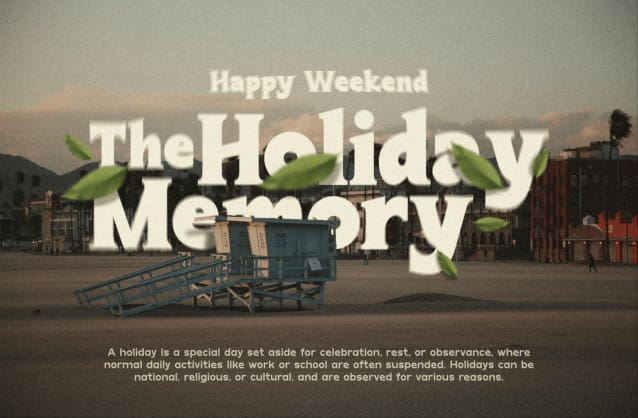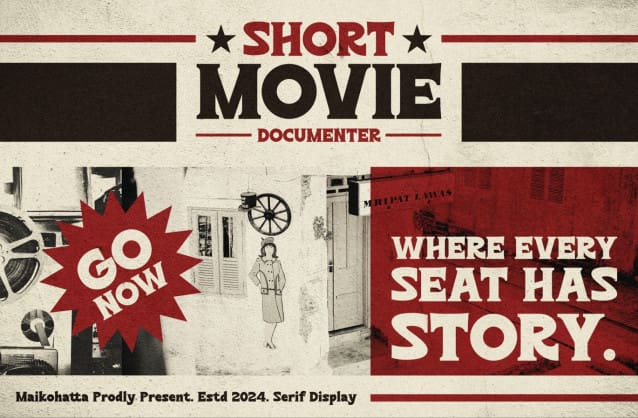
Gremie Font
Gremie Font – Bold Serif Display. This font features a balanced proportion of thickness and thinness of strokes, creating visually appealing and easy to read. This modern serif style is often characterized by a bold distinction between thick and thin lines, providing an understated yet striking touch.